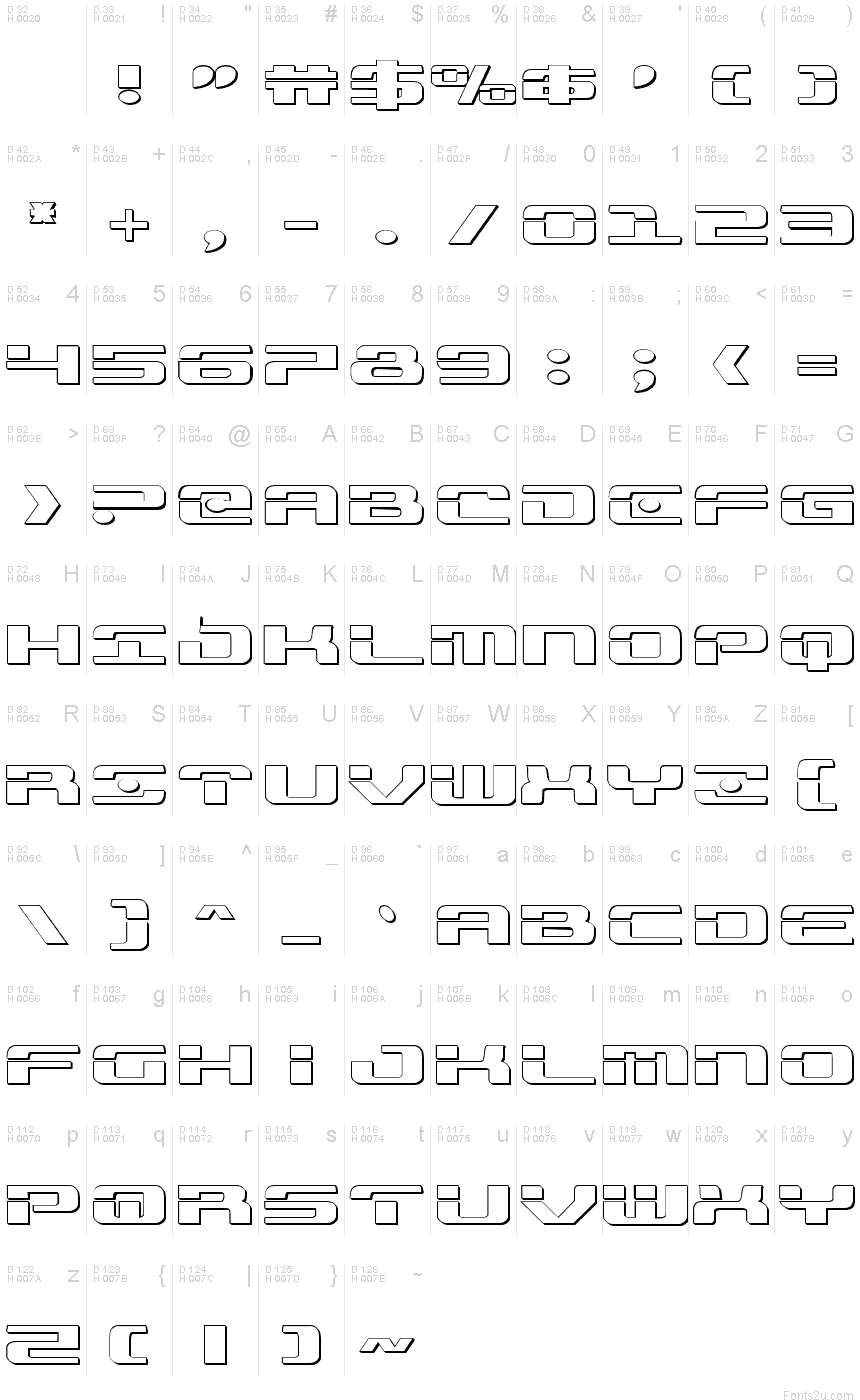
Troopers 3D Expanded by Daniel Zadorozny of Iconian Fonts is a free futuristic outlined display font with broad, low-slung proportions. The rounded rectangular letters use clipped corners and long horizontal runs, much like custom spacecraft lettering. Open interior lines and narrow breaks keep the wide forms technical rather than bulky.
Science-fiction entertainment is its clearest territory. The aerodynamic construction suits game title cards, film posters, and merchandise built around spacecraft, racing, or advanced machinery. In publishing, it can turn an oversized magazine cover line or a graphic-novel chapter heading into part of the engineered world depicted in the detailed artwork.
Troopers 3D Expanded